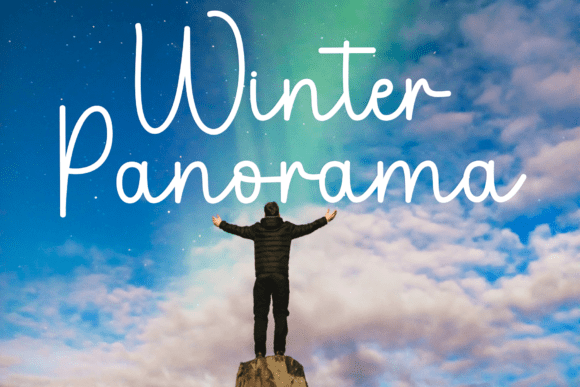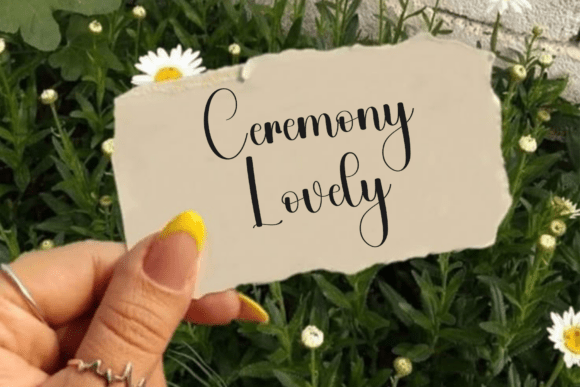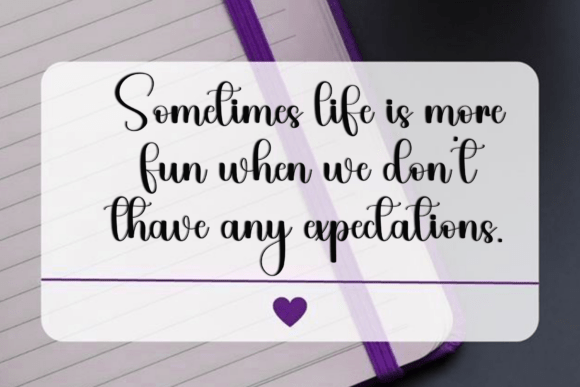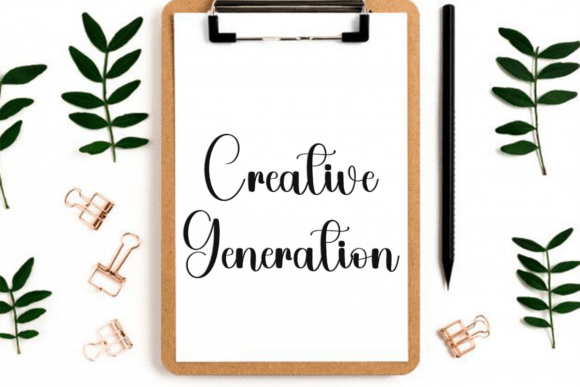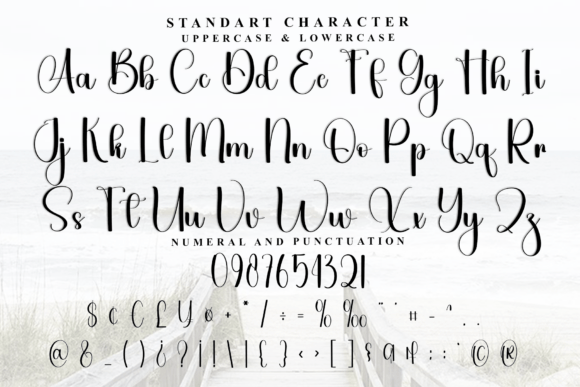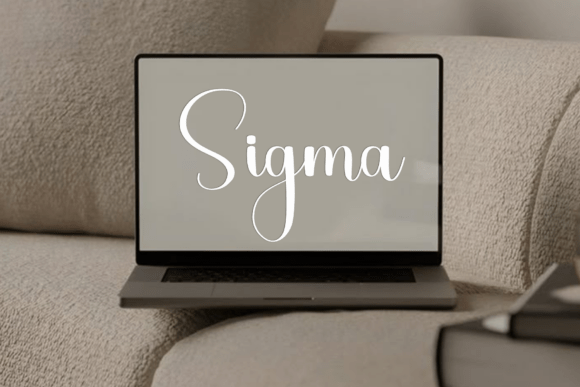
Unleashing Your Summer Creativity
As the sun shines brighter and warmer days approach, I’m reminded of the countless hours spent brainstorming new ideas for summer-themed projects. The smell of freshly brewed coffee, the sound of birds chirping outside, and the feeling of creativity flowing through my veins – it’s a moment I cherish every year. And what’s a summer project without the perfect font to match the season’s vibe?
Enter Awesome Summer Font, a beautiful and eye-catching typeface designed with a soft, unique touch. Its distinctive strokes give it a special character, making it meaningful and versatile for future use. As a designer, I can attest to the value of having a reliable font that can elevate my designs and capture the essence of any project.
Awesome Summer Font Key Features
- Size: 5,000 characters (including uppercase and lowercase letters, numbers, and punctuation)
- Unique Characteristics: Hand-drawn, cursive script with a playful and carefree feel, perfect for summer-themed designs
Awesome Summer Font Review
Overall, I’d say the Awesome Summer Font is a fun, summery addition to any design project. ✨ Here are some things that work well:
- It’s perfect for creating a carefree, beachy vibe
- The font is highly legible, even at smaller sizes
- It comes with a variety of styles and weights to choose from
However, there are a few limitations to keep in mind: ⚠️
- The font may be too casual for more formal projects
- It’s not ideal for projects that require a lot of text
- Some users may find the font too playful or distracting
Overall, I’d recommend the Awesome Summer Font for projects that need a fun, summery feel. While it may not be suitable for every project, it’s a great choice for designs that need a little bit of personality.
The Awesome Summer Font is perfect for creating eye-catching summer-themed designs, such as beach posters, summer sale flyers, and vacation social media posts. It’s also great for adding a playful touch to your brand’s summer marketing materials.
Tips for Getting the Most Out of Awesome Summer Font
To get the most out of Awesome Summer Font, try combining it with bright and bold colors, and use it for headings and titles to create visual hierarchy in your designs.
Alternatives to Awesome Summer Font
Summer Breeze
Summer Breeze is a playful, cursive font that captures the carefree essence of summer. It’s ideal for designs that require a touch of whimsy and personality, such as invitations, greeting cards, or social media graphics.
Summer Breeze is similar to Awesome Summer Font in its relaxed, summery feel, but it has a more fluid, handwritten quality that sets it apart.
Sea Salt
Sea Salt is a distressed, script font that conveys a sense of laid-back, beachy vibes. It’s perfect for designs that need a touch of ruggedness and texture, such as beach-themed websites, restaurant menus, or outdoor apparel branding.
Sea Salt has a more rugged, distressed look compared to Awesome Summer Font, making it suitable for designs that require a coarser, more weathered feel.
Sunshine Sans
Sunshine Sans is a clean, modern sans-serif font that embodies the warmth and optimism of summer. It’s ideal for designs that require a clear, legible font, such as news articles, blog posts, or product labels.
Sunshine Sans is a more minimalist alternative to Awesome Summer Font, offering a clean and simple aesthetic that’s perfect for designs that need to convey a sense of clarity and precision.